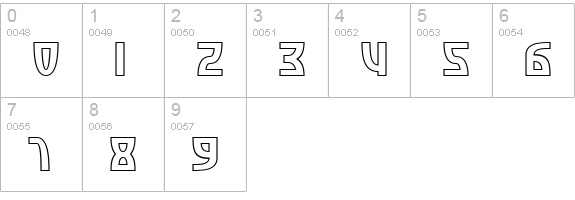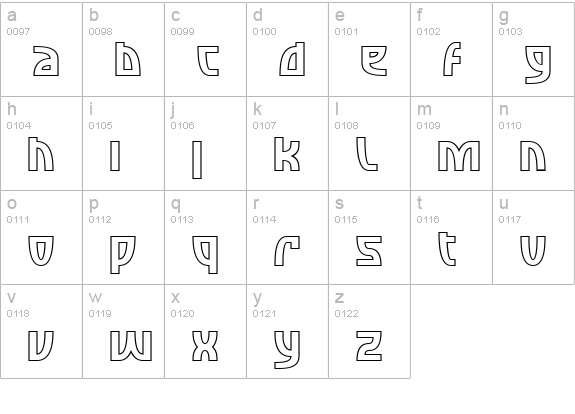
SF Retroesque Outline Font Details
SF Retroesque Outline is a stunning font that effortlessly captures the essence of the retro era, blending it with a contemporary twist. With its clean and bold lines, this font is perfect for adding a touch of nostalgia to any project. Its retroesque style takes inspiration from the groovy fonts of the past, while the outline design gives it a modern and sleek feel. This font offers a unique and eye-catching aesthetic that is sure to make your designs stand out. Whether you're working on a vintage-inspired poster, a retro-themed website, or even a funky party invitation, SF Retroesque Outline will bring a sense of style and sophistication to your work. One of the best things about SF Retroesque Outline is that it is completely free. You can download it at FontsMarket.com, where you'll find a wide range of high-quality fonts to suit all your design needs. By making SF Retroesque Outline freely available, the creators have made it accessible to everyone, ensuring that creativity knows no bounds. Not only does SF Retroesque Outline offer a visually appealing design, but it is also incredibly versatile. It works seamlessly across various design mediums, such as print, web, and digital platforms. The font's legibility and readability make it a great choice for headlines, titles, and logos, while its unique style adds a touch of personality to any text. The retroesque charm of SF Retroesque Outline will transport you back in time, evoking a sense of nostalgia and capturing the spirit of the past. Its timeless design ensures that it will remain relevant and impactful for years to come. So why wait? Download SF Retroesque Outline for free at FontsMarket.com and let your creativity soar with this stylish and versatile font.